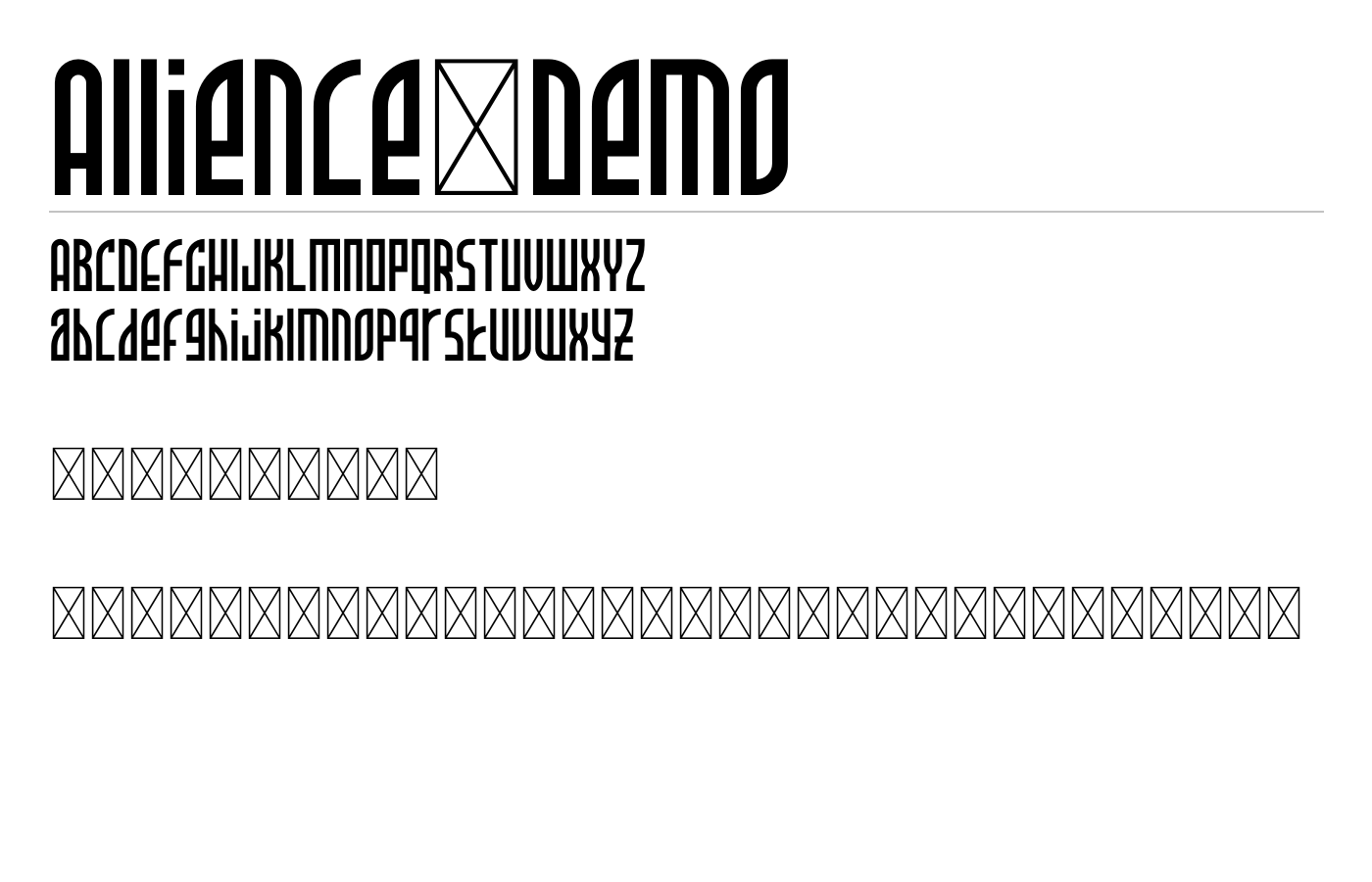
Allience-Demo is a narrow, bold sans serif font with a strong geometric influence and high contrast between thick and thin strokes. Its tall, condensed letterforms and distinctive angular shapes convey a modern, edgy feel, making it ideal for headlines, logos, and branding where a sleek, contemporary look is desired. This font works especially well for fashion, technology, or futuristic-themed designs that need a clean yet striking appearance.
Allience-Demo Font
About Allience-Demo Font
| Font family | Allience-Demo Font |
| Designer | Esa Prasetio Nugroho |